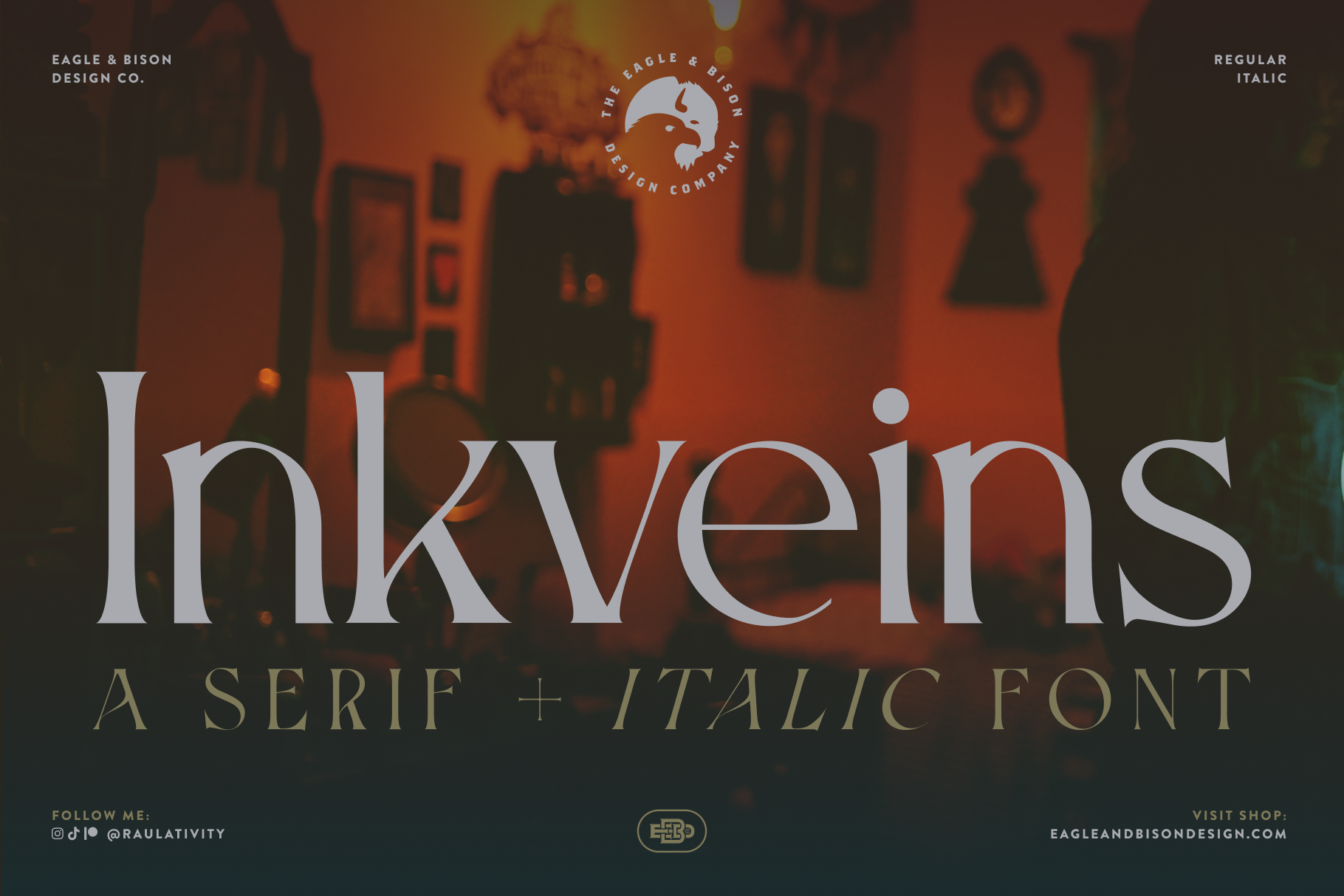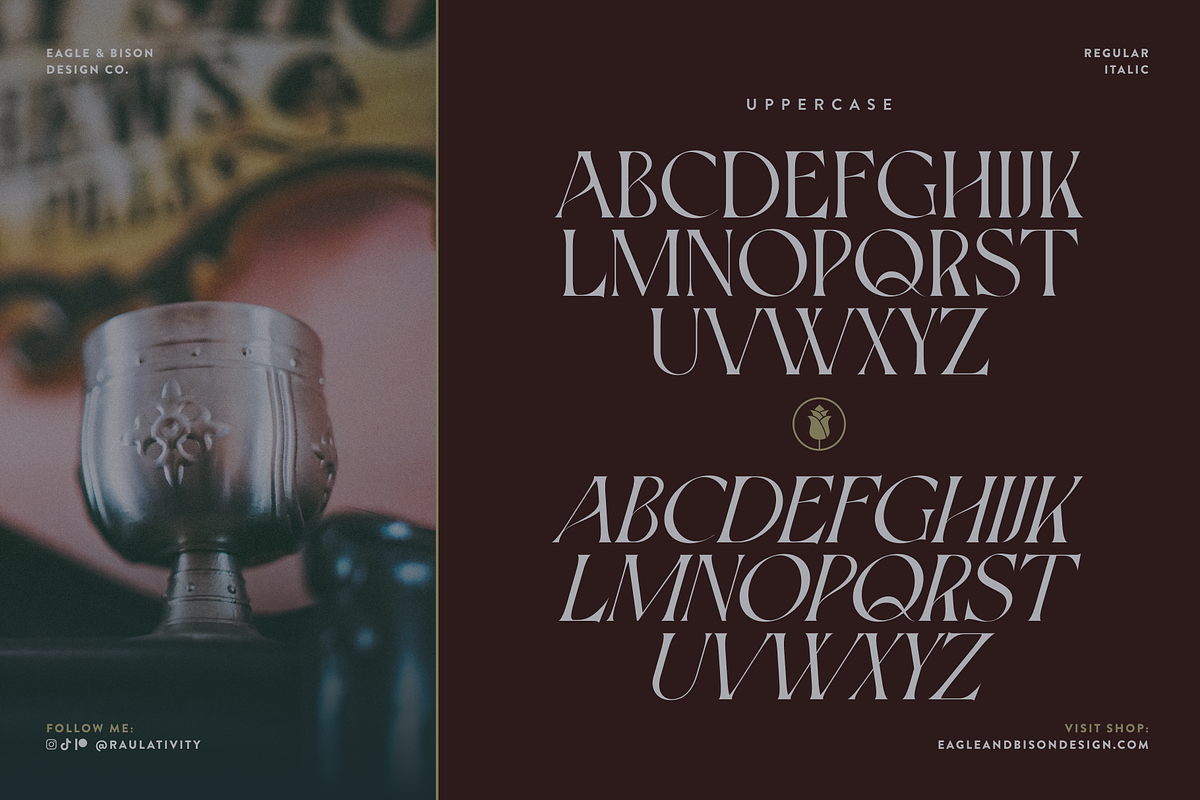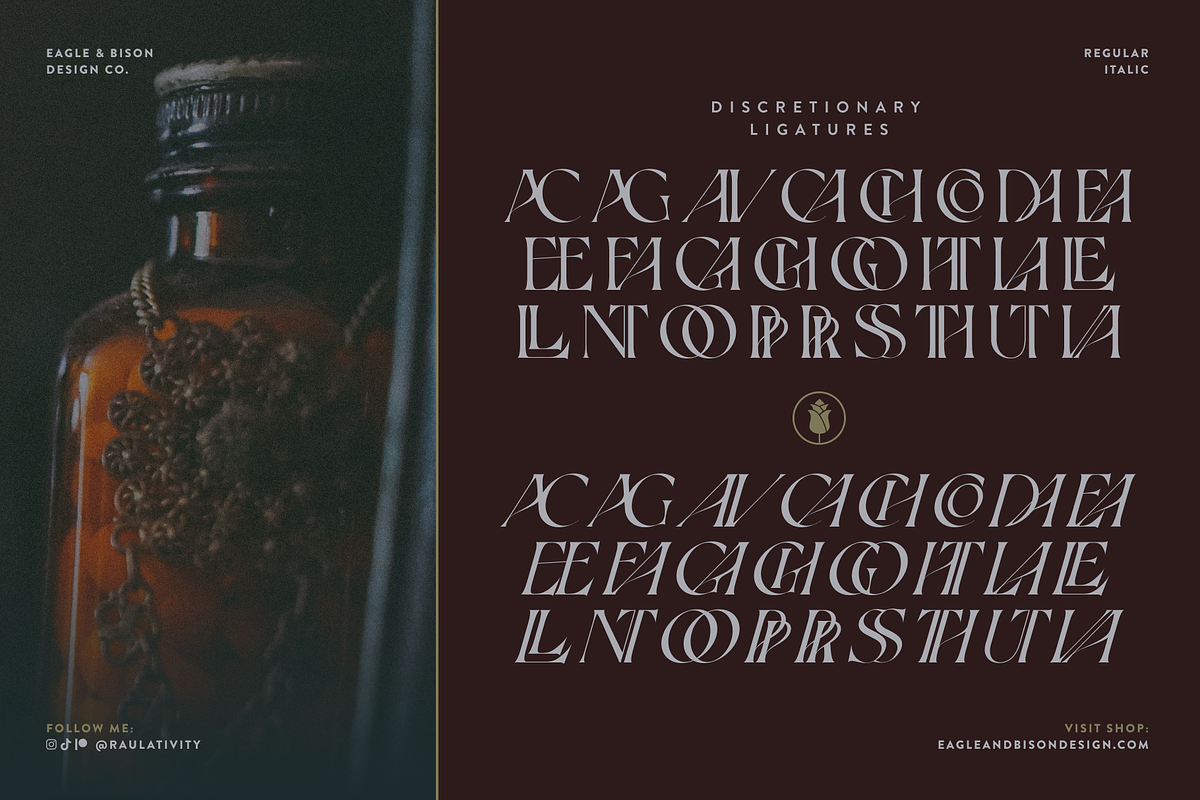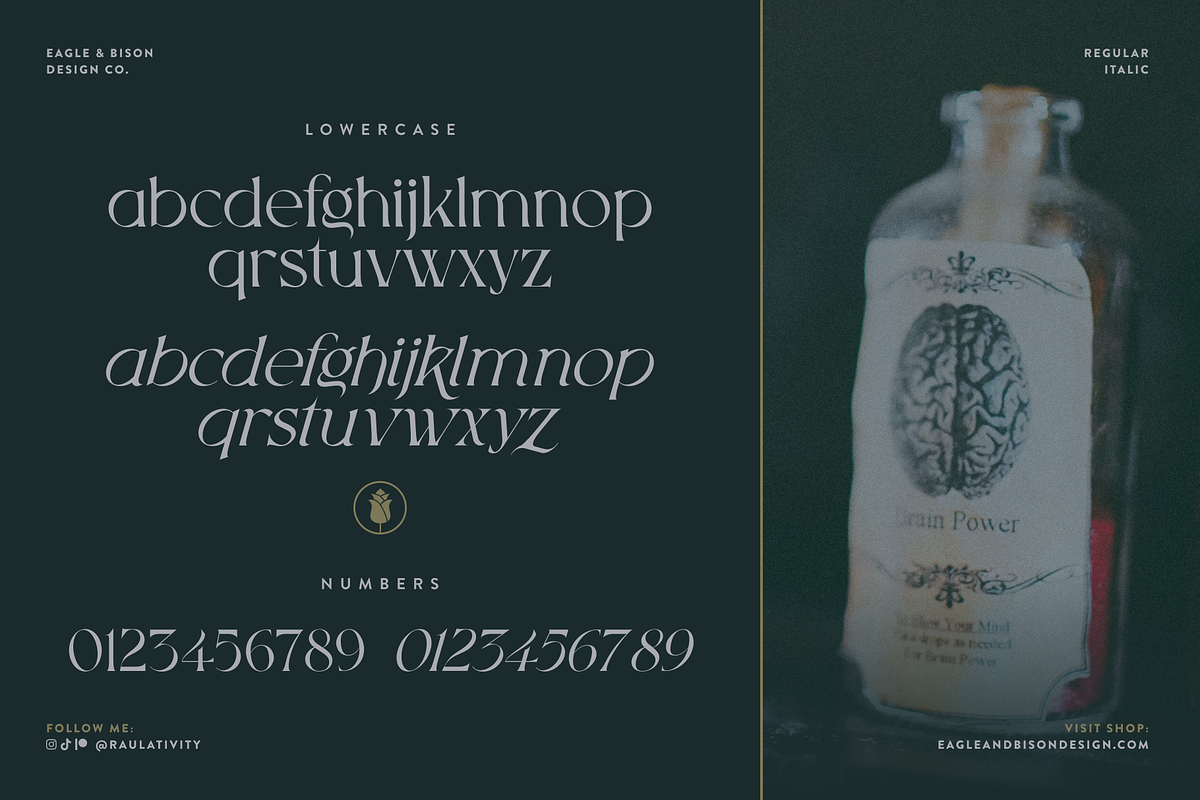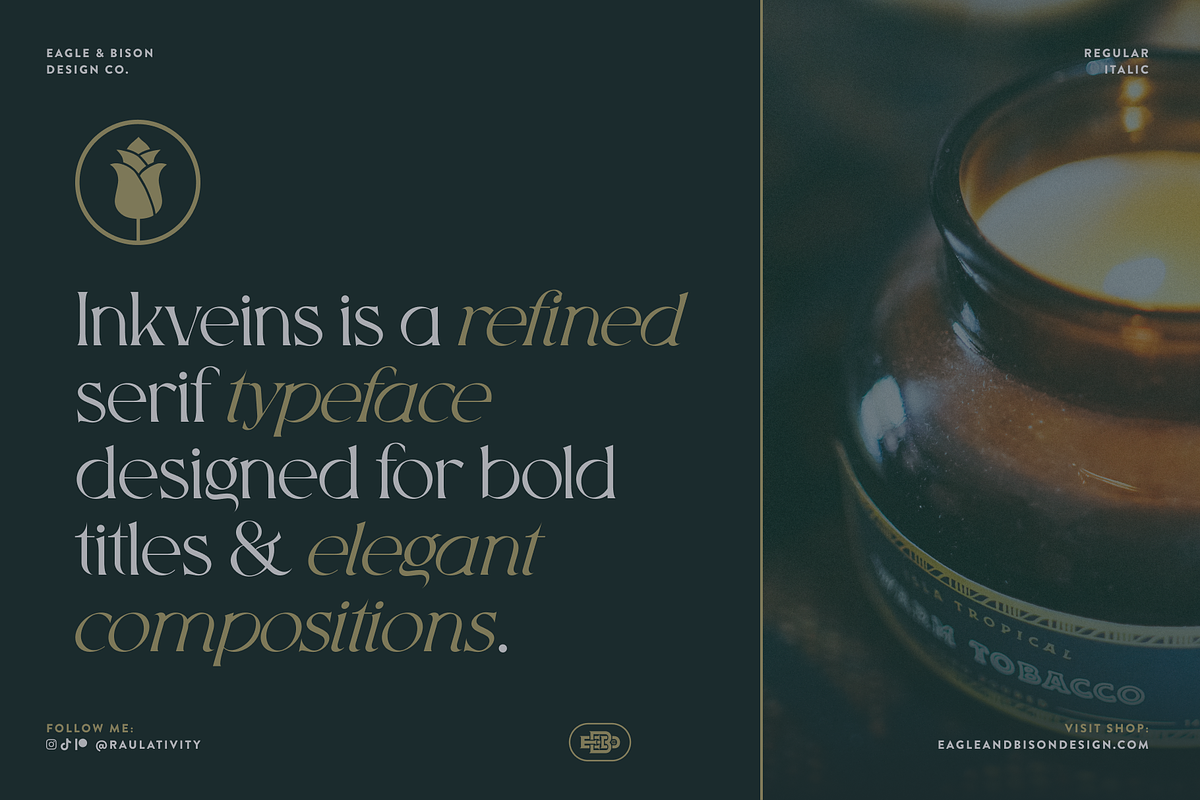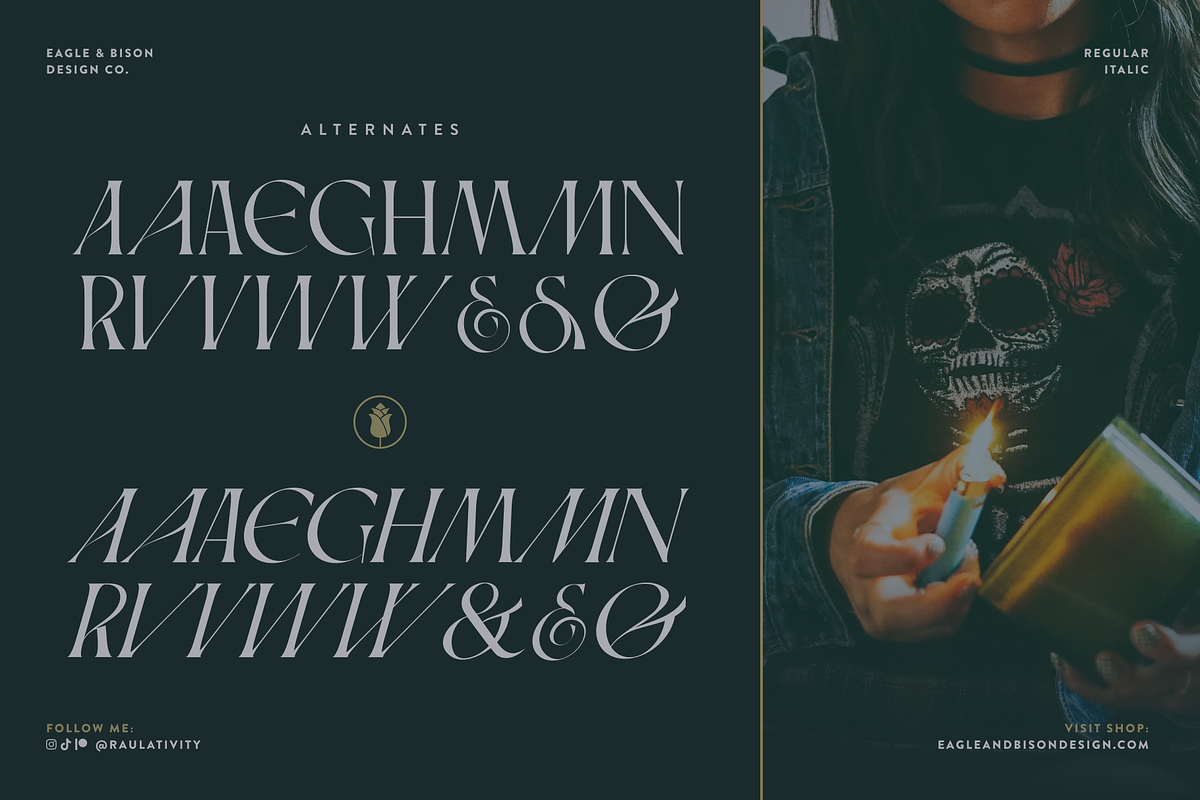
Inkveins - A Serif + Italic Font
Inkveins is a refined serif display font designed for elegant titles, branding, and editorial-style layouts. Its sharp contrast and flowing details make it well-suited for work that leans more classic and expressive.
The family includes two styles, Regular and Italic, each built with 143 glyphs. It features uppercase, lowercase, numbers, punctuation, and special characters, along with 17 alternate characters and 25 discretionary ligatures.
Inkveins is designed to perform best at larger sizes where its details and character can stand out.